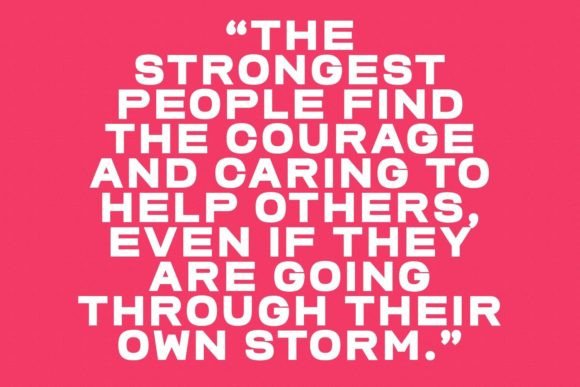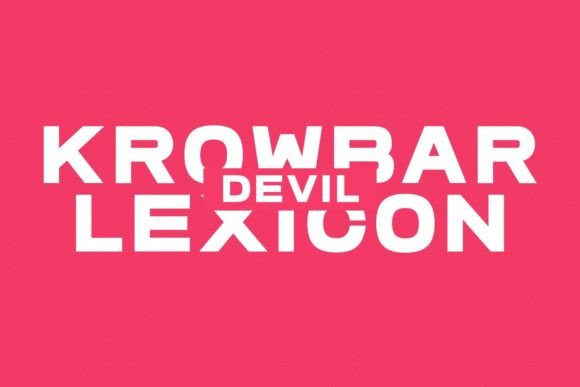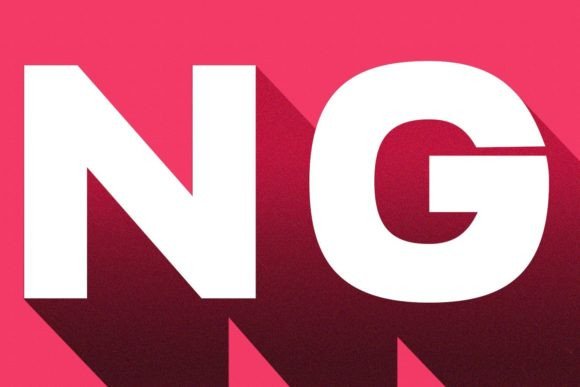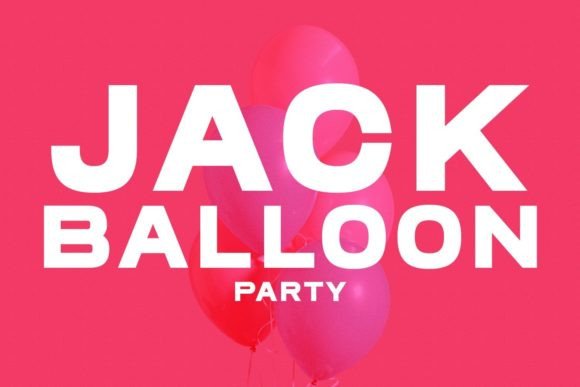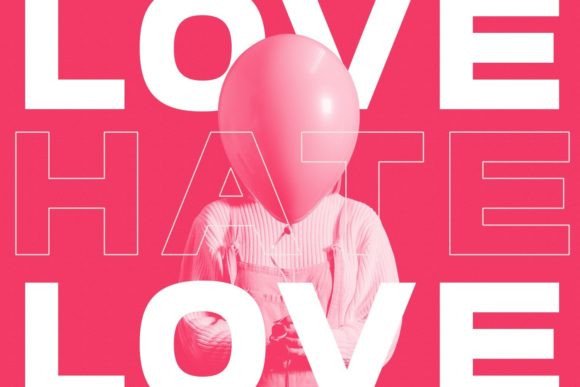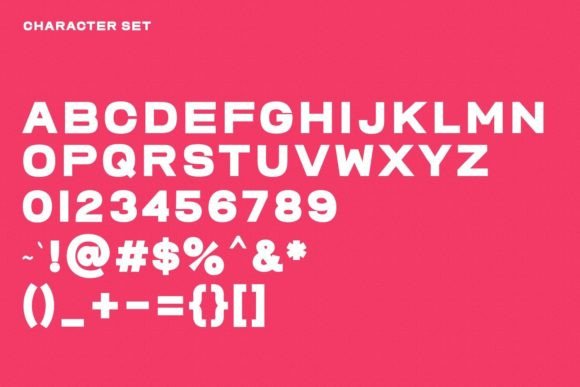
Introduction to Komrad Font
Komrad is a cool and modern sans serif display font.
Add it to posters, headlines, blog posts, titles, logos, social media posts, marketing, or promo materials, and watch how it makes them stand out .
Komrad Font offers exceptional quality and versatility, making it a valuable addition to your design toolkit. Whether you’re creating for personal projects or commercial use, Komrad Font delivers professional results.